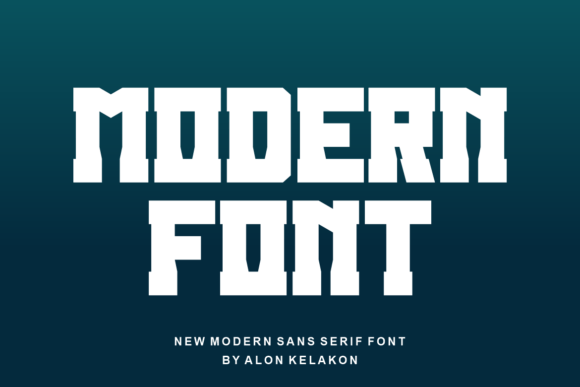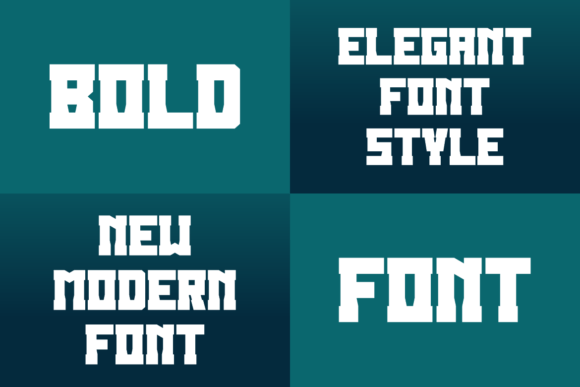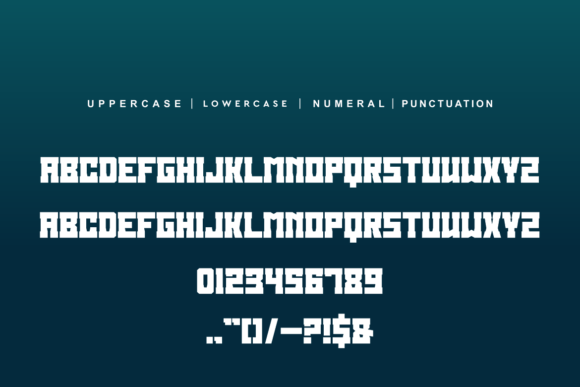
Introduction to Repornge Font
As a designer, there’s nothing quite like the thrill of finding that perfect font to elevate your project. It’s like stumbling upon a hidden gem that sets your creative juices flowing and inspires you to push the boundaries of your design. For me, that moment came when I discovered the Repornge Font – a cool and modern display font that’s perfect for making a bold statement.
Whether you’re working on a product packaging project, a branding campaign, or any other creative endeavor, the Repornge Font is a valuable asset in your design toolkit. Its high-quality design and transparent background make it a versatile resource that can be used in a variety of contexts. Plus, with a free download available, it’s an accessible design resource that won’t break the bank.
So, what makes the Repornge Font so special? In this article, we’ll dive into the details of this modern display font and explore why it’s a must-have for designers looking to add a touch of daring typography to their creative projects.
Key Features of Repornge Font
- High-quality typography with a transparent background, perfect for creative projects.
- Features a unique, modern design that adds a touch of sophistication to any creative project.
Honest Review: Repornge Font
As a designer, I’m always on the lookout for high-quality design resources to elevate my creative projects. Recently, I stumbled upon the Repornge Font, and I’m excited to share my honest review.
What works well about the Repornge Font is its modern and sleek aesthetic. It’s perfect for any design project that requires a clean and minimalist look. The font is also available for free download, which is a huge plus. I love that it comes with a transparent background, making it easy to layer with other design elements.
- ✨ Modern and sleek aesthetic
However, I do have a few concerns about the Repornge Font. The font family is quite limited, which may not be ideal for designers who require a wide range of font styles.
- ⚠️ Limited font family
Overall, I’m impressed with the Repornge Font, and I would recommend it to designers who are looking for a high-quality, free design resource for their creative projects. While it may have its limitations, it’s definitely a great addition to any designer’s toolkit.
The Repornge Font is a versatile design resource that can be used in a variety of creative projects, including logos, business cards, and social media graphics. Its high quality and transparent background make it an ideal choice for designers who want to add a professional touch to their designs.
Tips for Getting the Most Out of Repornge Font
To get the most out of the Repornge Font, experiment with different font sizes, colors, and styles to find the combination that works best for your design. You can also use the font in conjunction with other design elements to create a unique and eye-catching visual effect.